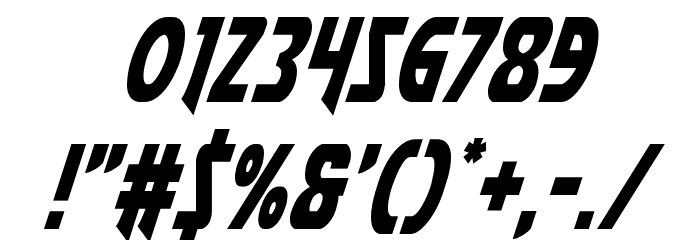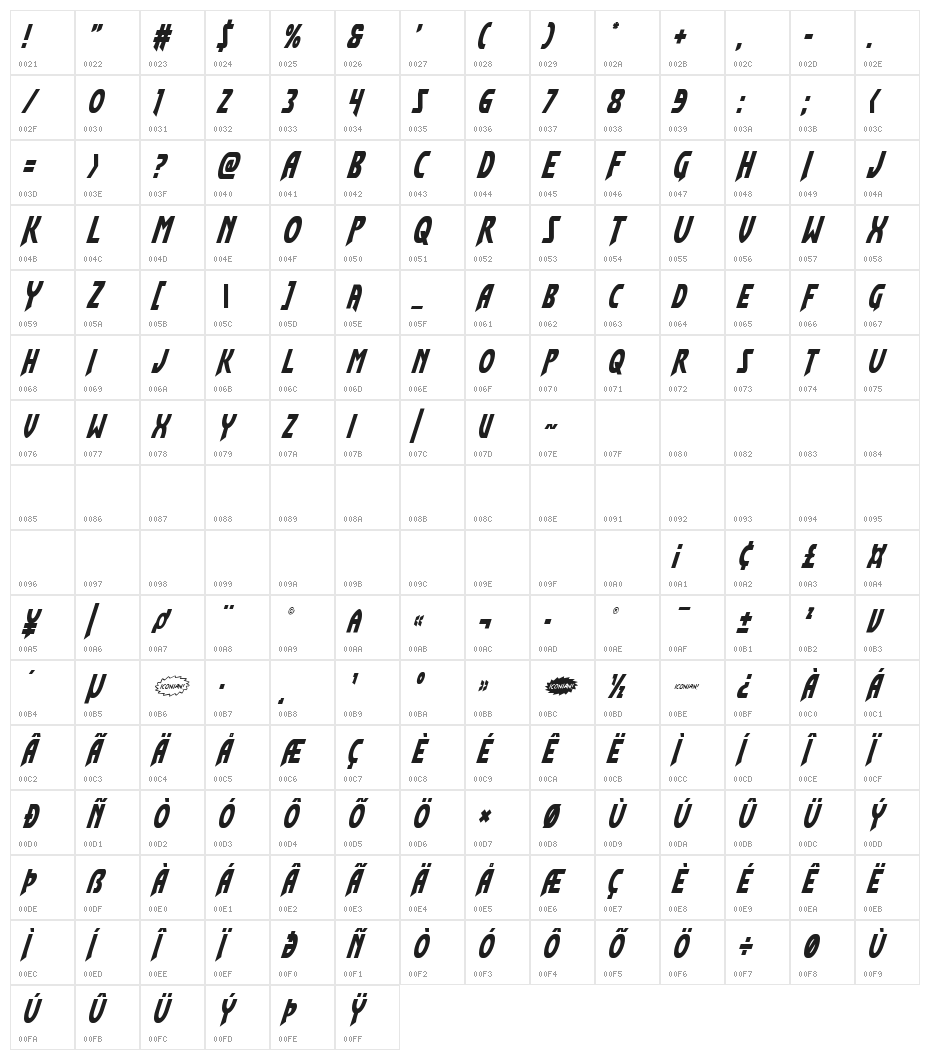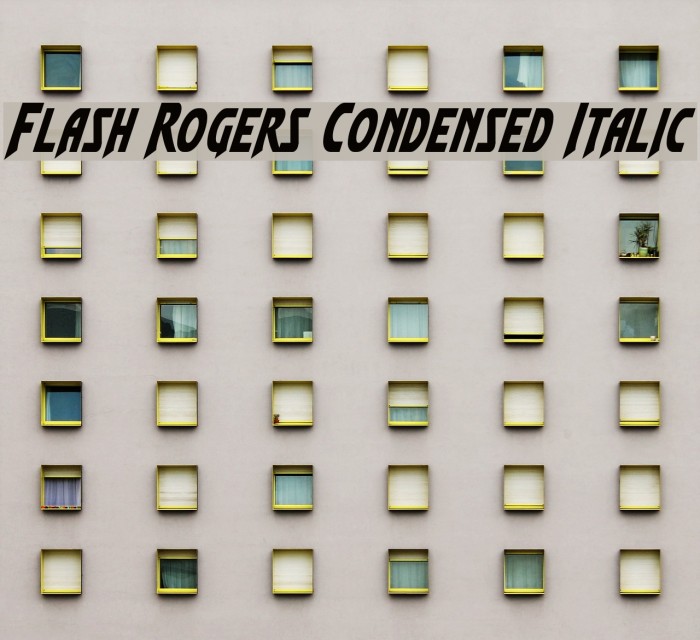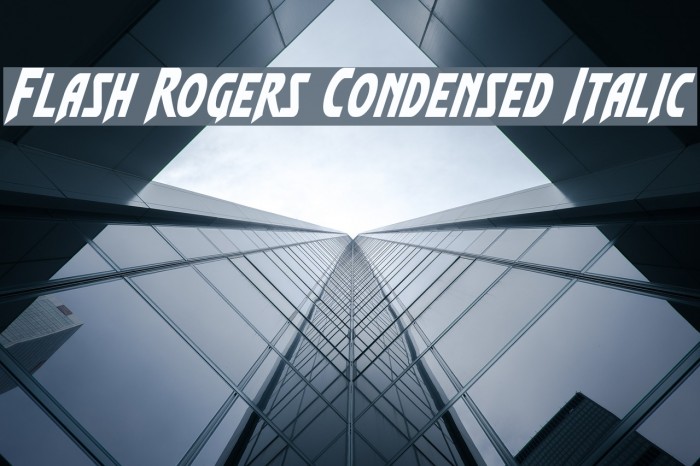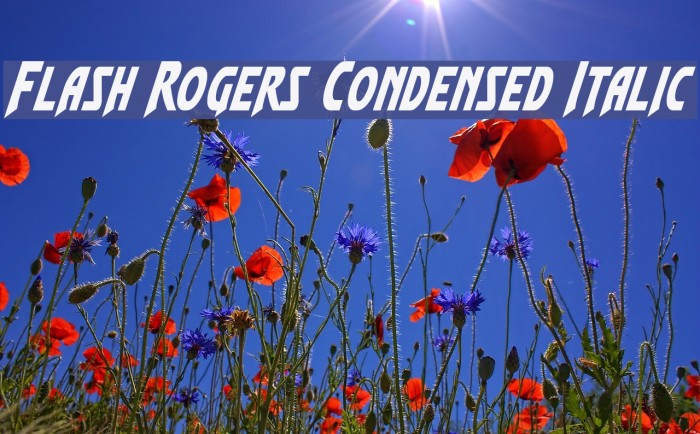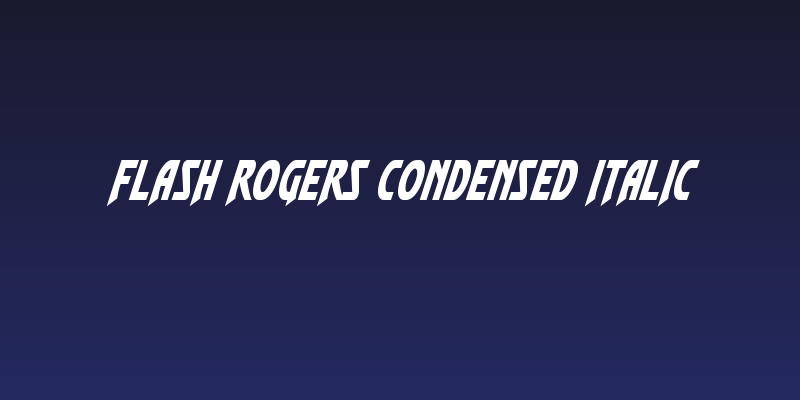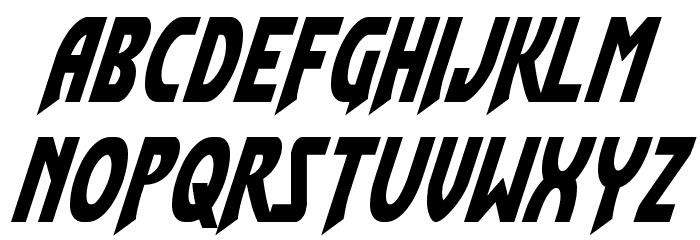
Flash Rogers Condensed Italic Font
Flash Rogers Condensed Italic Description
This font features a dynamic and bold design with a strong italic slant, giving it a sense of speed and motion. The characters are condensed, enhancing the compact and energetic appearance. Each letter is sharply angled, contributing to a futuristic and aggressive style. The uppercase and lowercase letters maintain a consistent style, with numbers and special characters following the same aesthetic. The font's striking appearance makes it ideal for projects that require a bold statement.
| Overall Style | Modern, Futuristic |
| Proposed Projects | Perfect for sports branding, action movie posters, video game titles, and dynamic advertisements. |